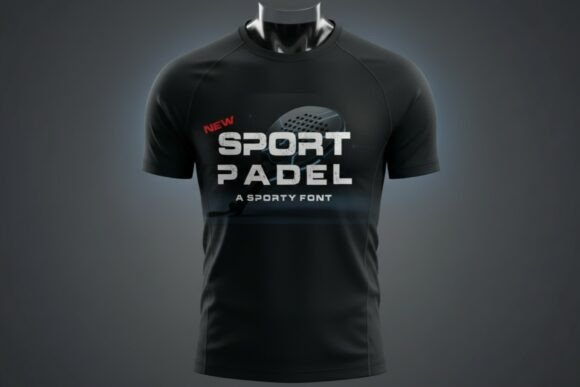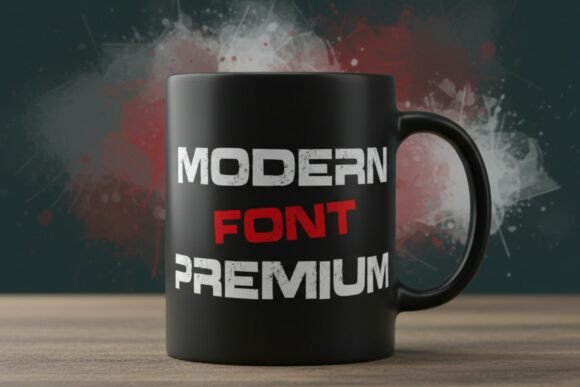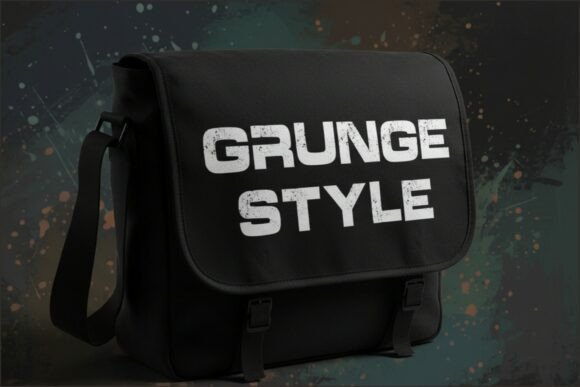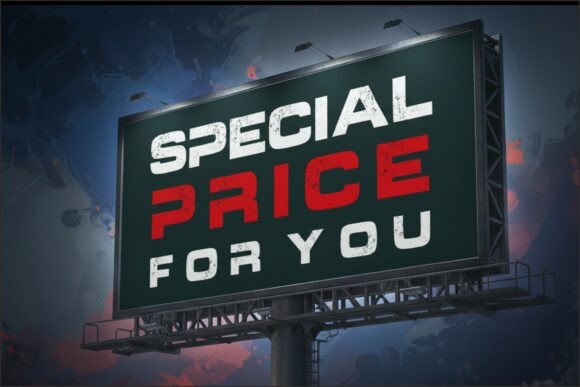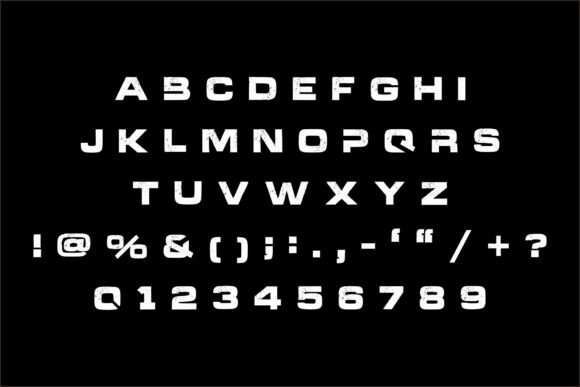
Introduction to New Sport Padel Font
New Sport Padel is a bold and powerful sporty display font designed for modern athletic and gaming designs.
With its strong shapes and textured style, this font is perfect for logos, posters, branding, sports apparel, and promotional materials It delivers a dynamic and energetic look that enhances visual impact and professionalism in any project.
Key Features of New Sport Padel Font
Why Choose New Sport Padel Font?
New Sport Padel Font offers exceptional quality and versatility, making it a valuable addition to your design toolkit. Whether you’re creating for personal projects or commercial use, New Sport Padel Font delivers professional results.